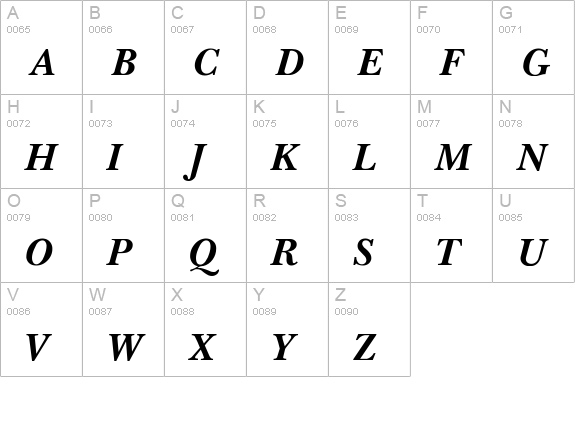
Basset Fed Kursiv font is a stunning display typeface that exudes elegance and sophistication. With its unique design featuring delicate curves and graceful letterforms, this font is perfect for adding a touch of class to your projects. Whether you're designing invitations, logos, or branding materials, Basset Fed Kursiv will make a lasting impression. The best part? This exquisite font is available for free download at FontsMarket.com. Simply visit the website to access this beautiful typeface and elevate your designs with its timeless appeal. Don't miss out on the opportunity to enhance your creations with the charm and beauty of Basset Fed Kursiv font. Download it today and let your creativity shine!